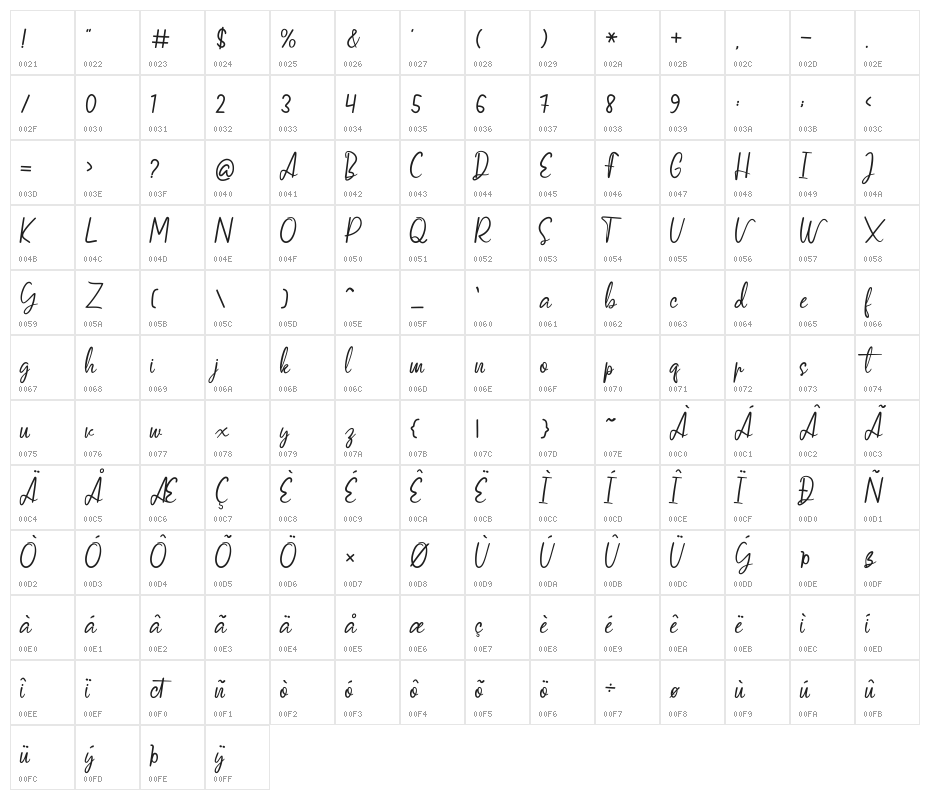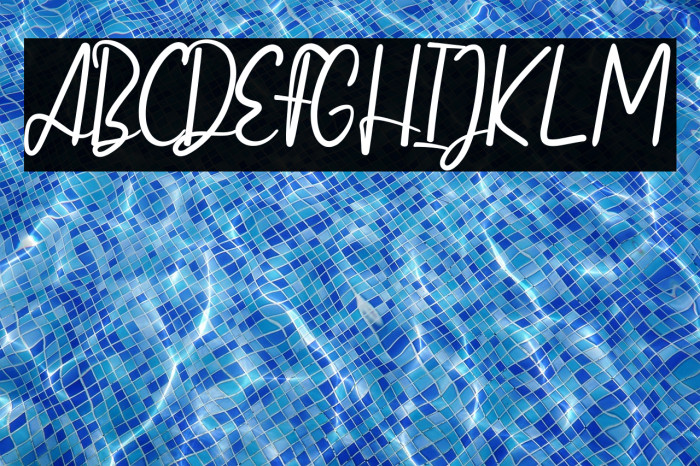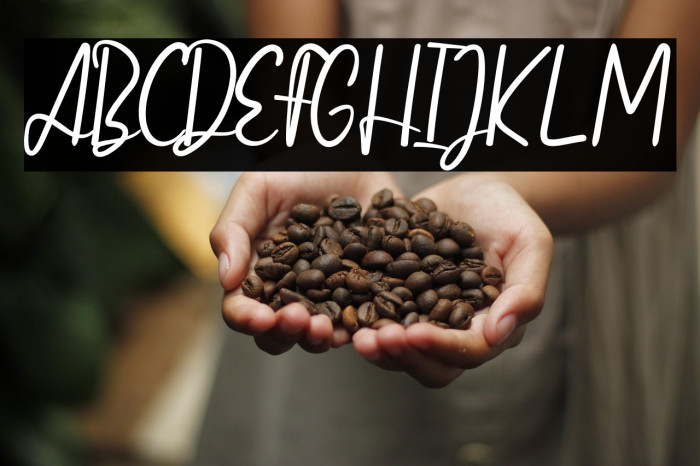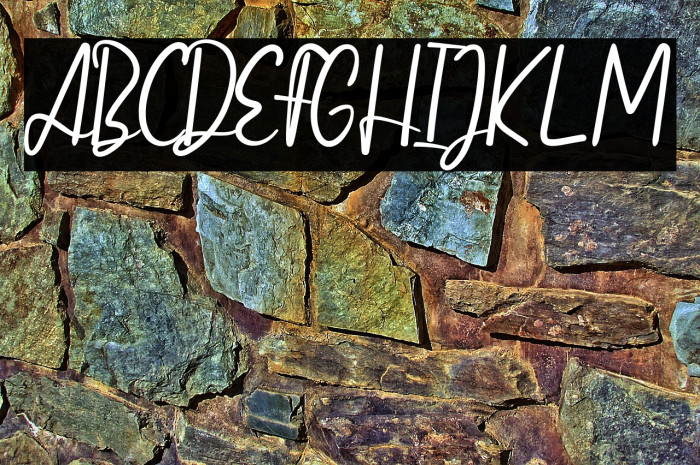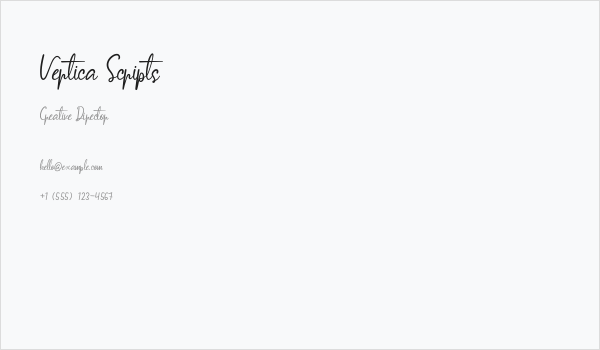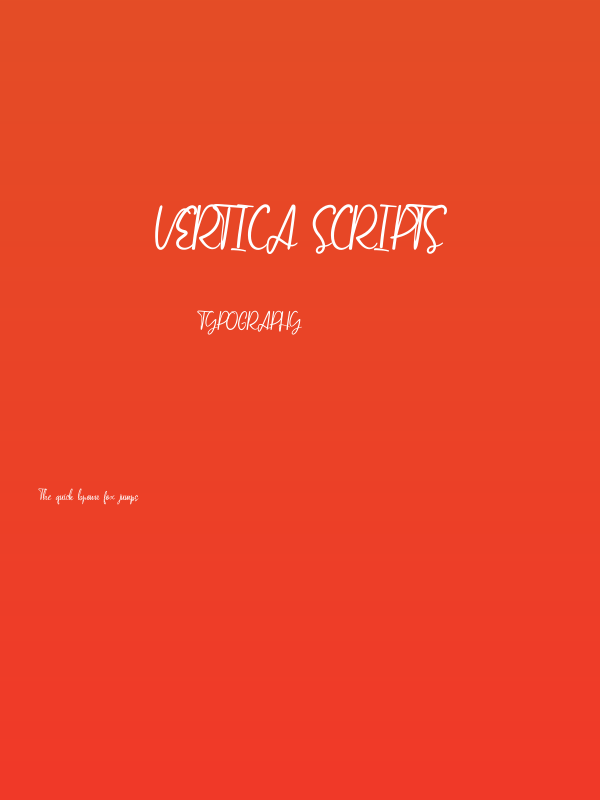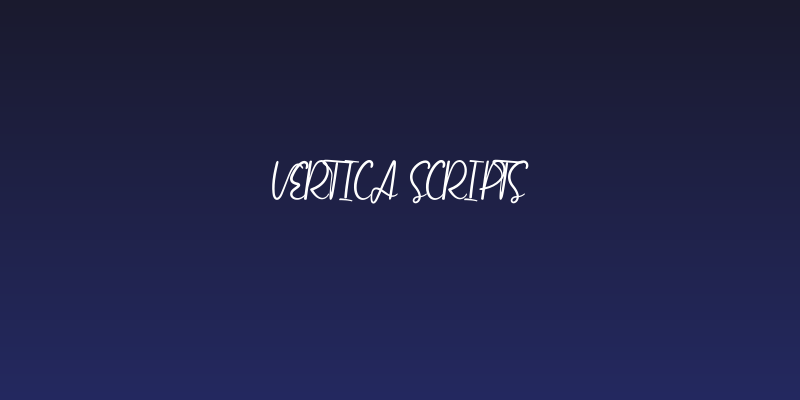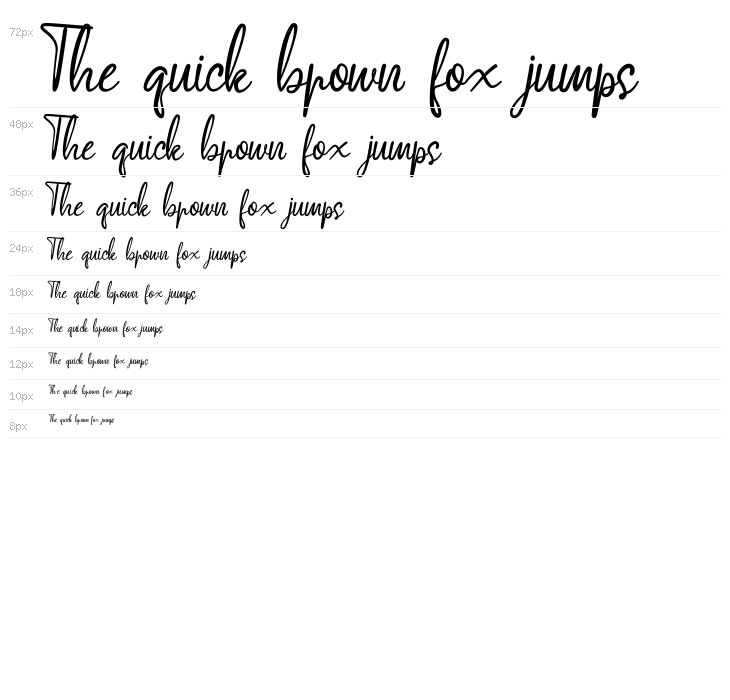
Vertica Scripts Font
Vertica Scripts Description
This font features a lively and expressive script style, characterized by its fluid and connected letterforms. The uppercase letters are bold and dynamic, with a slight slant that adds a sense of motion and elegance. The lowercase letters maintain a consistent flow, enhancing readability while retaining a playful and artistic flair. The numerals are clear and well-defined, complementing the overall style. Special characters are thoughtfully designed, integrating seamlessly with the rest of the font. This font's unique charm makes it suitable for a variety of creative applications.
| Proposed Projects | Ideal for wedding invitations, greeting cards, branding, and artistic projects. |